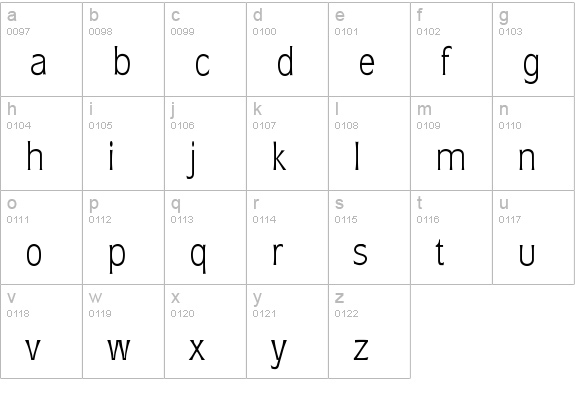
Introducing Roundest-Xlight, a delightful and charming font that exudes a sense of elegance and modernity. This font features perfectly rounded edges and a light weight that adds a touch of sophistication to any design project. The Roundest-Xlight font is ideal for creating clean and stylish designs, whether it's for branding, packaging, invitations, or social media graphics. The best part? Roundest-Xlight is available for free download at FontsMarket.com. This means you can easily access this beautiful font and use it in your projects without any cost. Don't miss out on the opportunity to elevate your designs with the Roundest-Xlight font - download it now and add a touch of refinement to your creations!